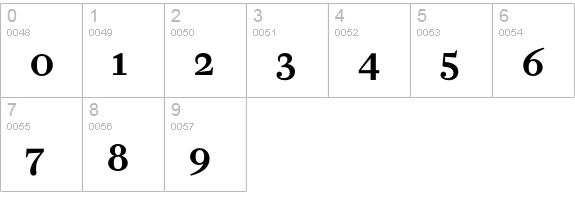
FarnhamDisplay-MediumOSF is a versatile and elegant font that combines traditional elements with a modern twist. Its medium weight strikes the perfect balance between sophistication and readability, making it ideal for a wide range of design projects. The unique old-style figures add a touch of charm and character to any text, enhancing its overall visual appeal. What sets FarnhamDisplay-MediumOSF apart is not just its aesthetic appeal, but also its accessibility. This font is freely available to download at FontsMarket.com, allowing designers and enthusiasts alike to easily incorporate it into their work without any cost. Whether you're working on branding, editorial design, or web typography, FarnhamDisplay-MediumOSF is a versatile option that will elevate your projects to the next level.